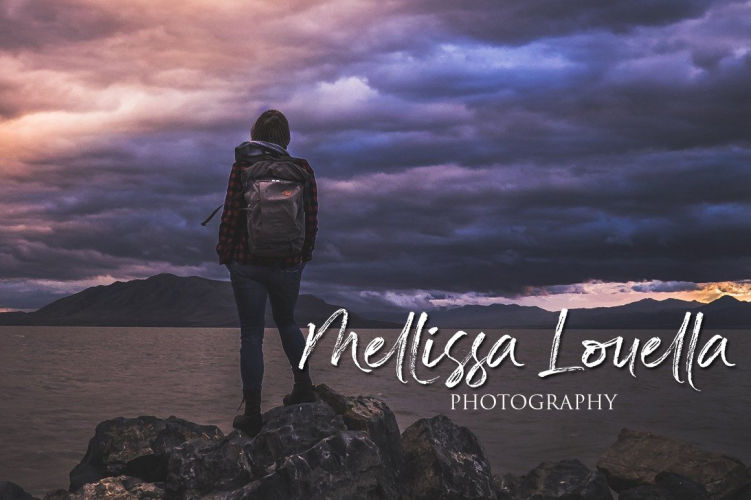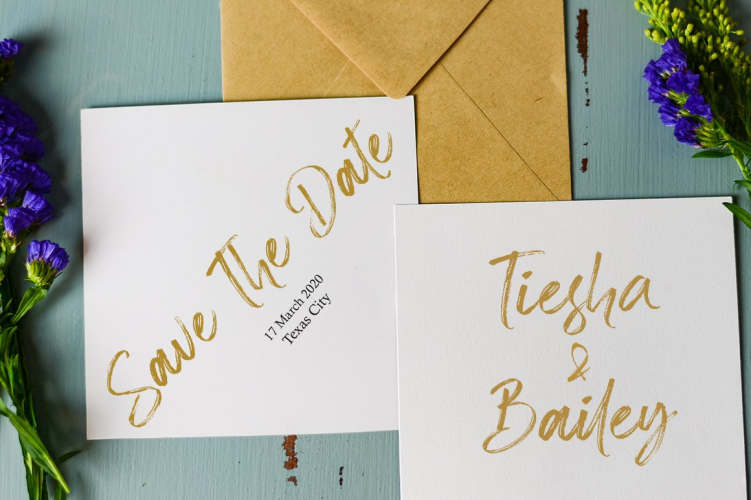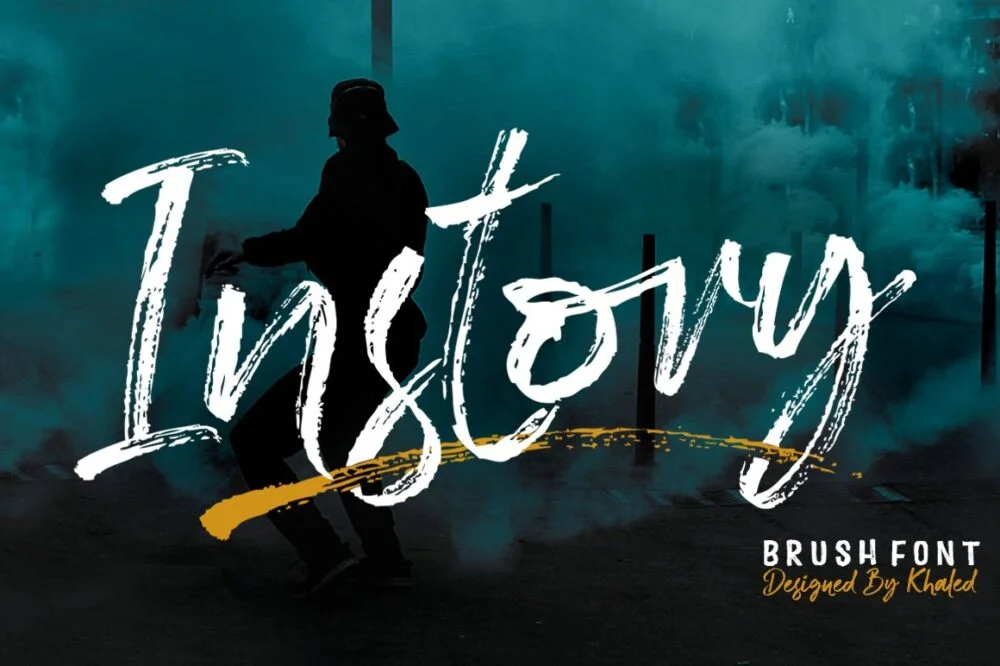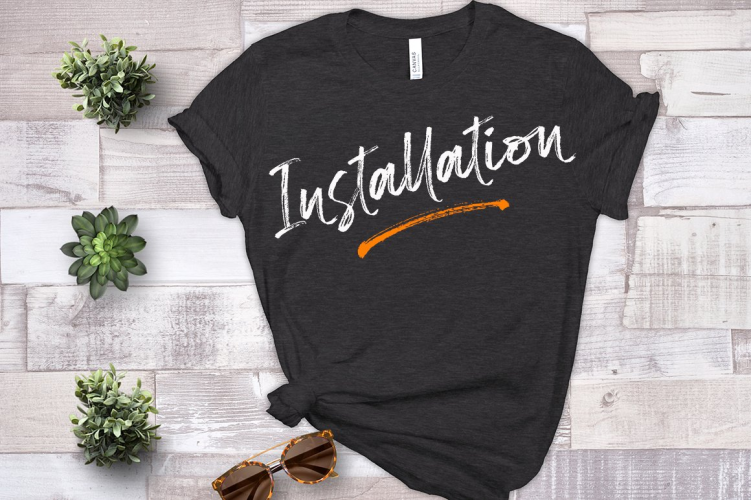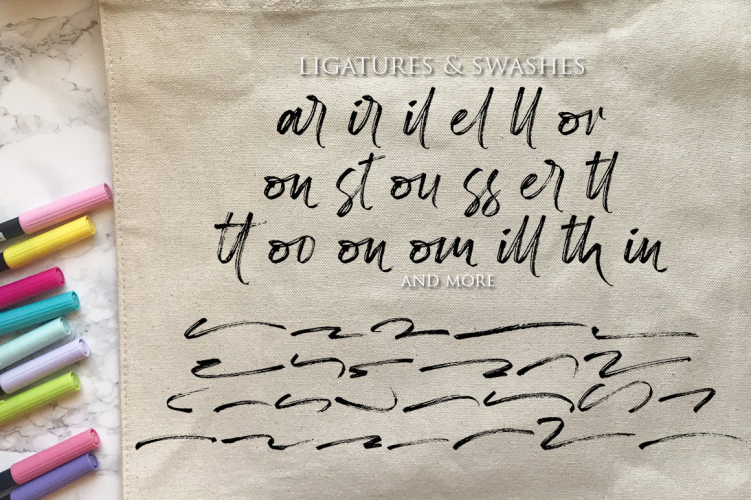
Instory Font
Instory Font is a new modern brush font with an irregular baseline, a contemporary approach to design, handmade natural and suitable for use in title design such as clothing, invitations, book titles, stationery designs, quotes, branding, logos, T-shirts, packaging designs, posters, and more.
Instory Font is a Brush Fonts font that brings a professional and versatile look to your projects. Instory Font is a new modern brush font with an irregular baseline, a contemporary approach to design, handmade natural and suitable for use in title design such as clothing, invitations, book titles, stationery designs,.